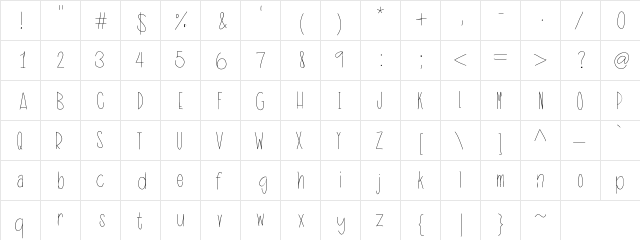
IdentityTheft Medium
Design Context for IdentityTheft Typeface
IdentityTheft takes a measured approach to typography — its balanced proportions and neutral character make it a reliable workhorse for both digital and print work.
Pro Tip: Pair IdentityTheft with a font of contrasting weight or personality to build a more expressive typographic hierarchy.